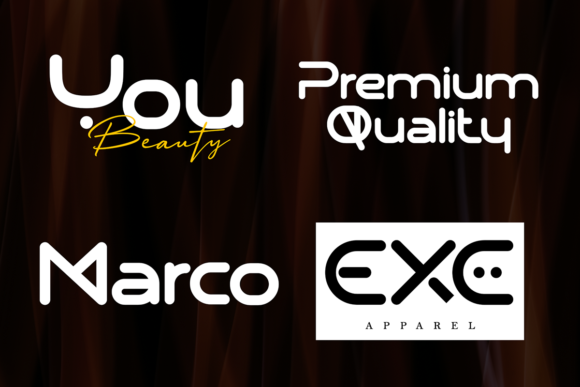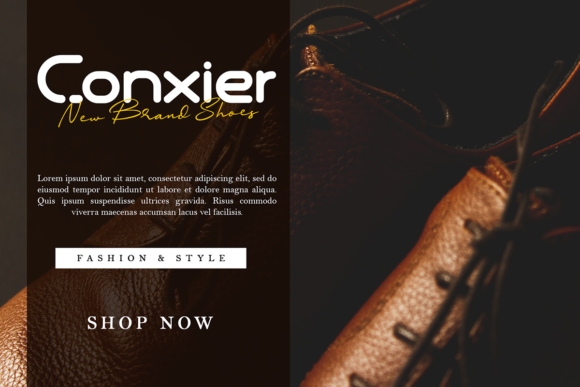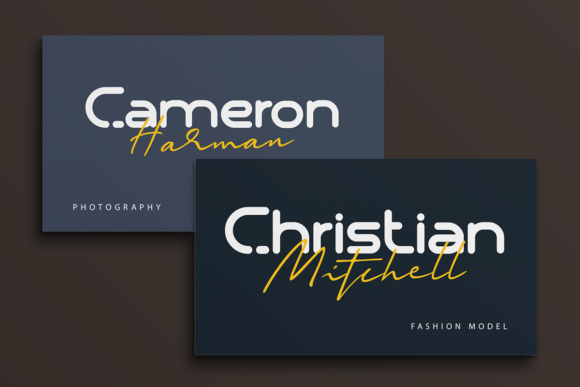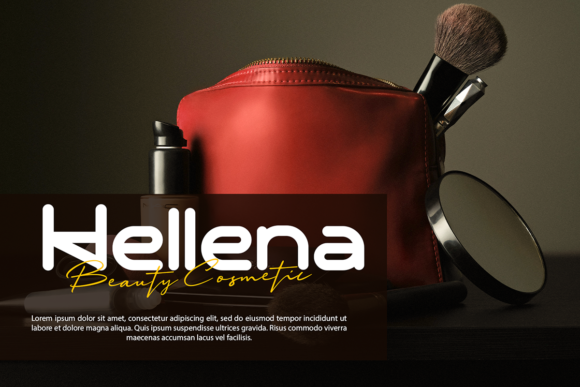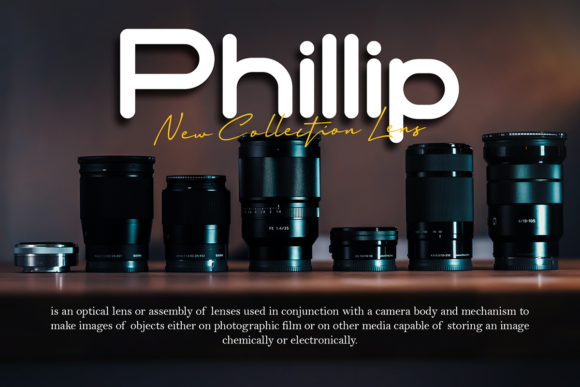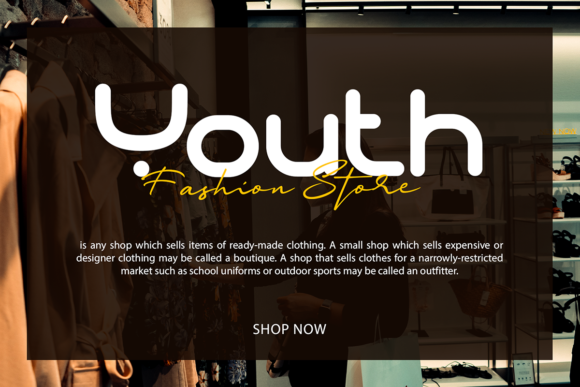
Introduction to Hazeer Cello Font
Hazeer Cello is a sleek and modern display font.
This typeset is perfect for brand logo, invitations, greeting card, or even any kind of project With multilingual features and style variations, this typeface would further enhance the aesthetical aspect of your work.
Hazeer Cello Font offers exceptional quality and versatility, making it a valuable addition to your design toolkit. Whether you’re creating for personal projects or commercial use, Hazeer Cello Font delivers professional results.